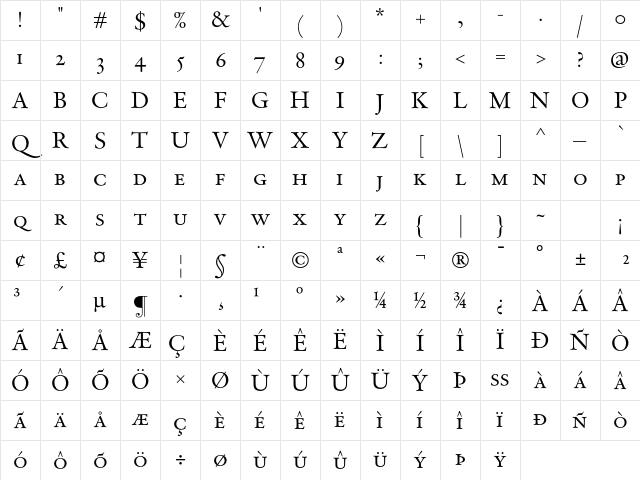
DTLVandenKeereDCaps Regular
Design Context for DTLVandenKeereDCaps
DTLVandenKeereDCaps is a composed and adaptable typeface that performs quietly and consistently across a wide range of design contexts.